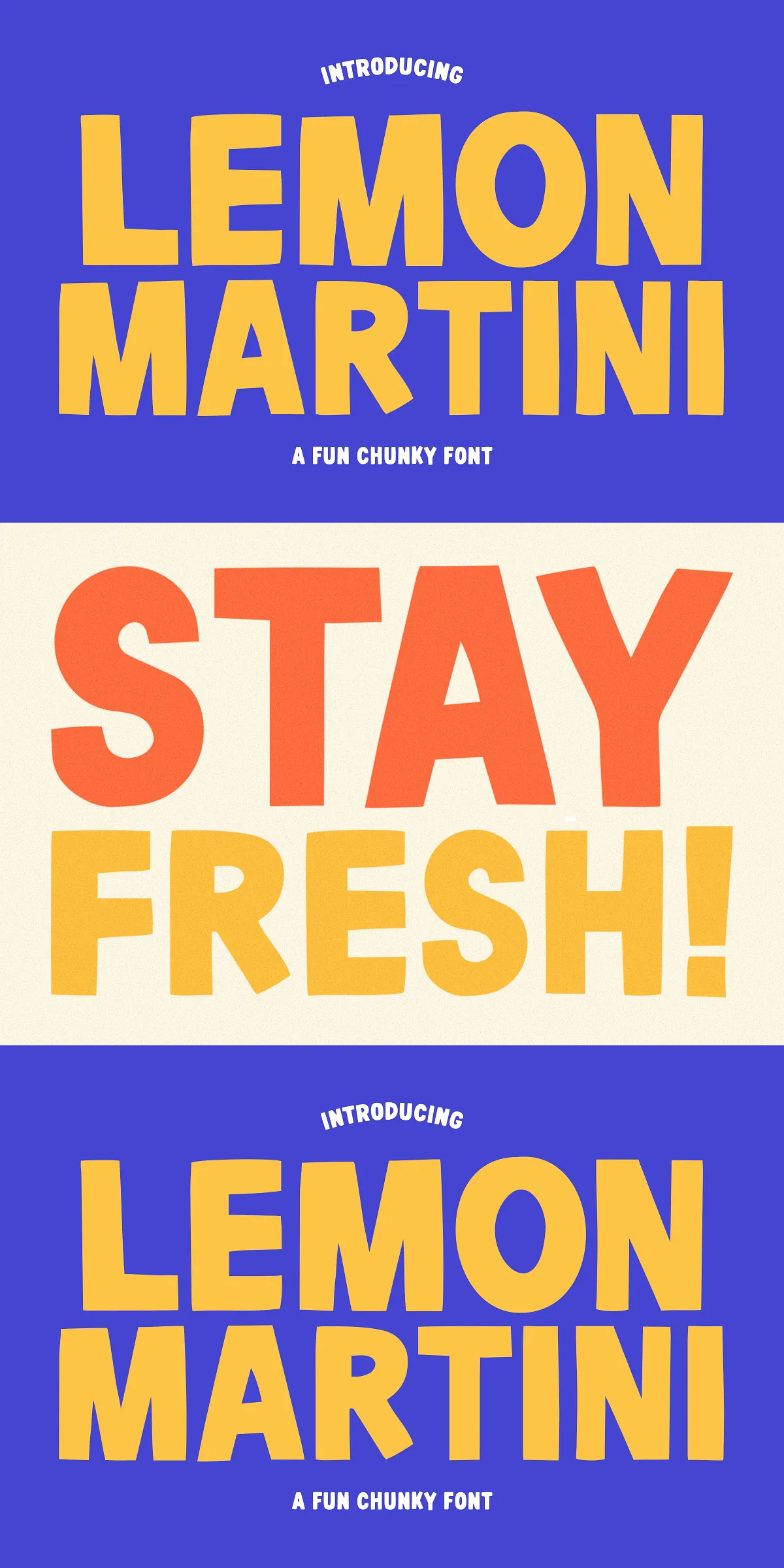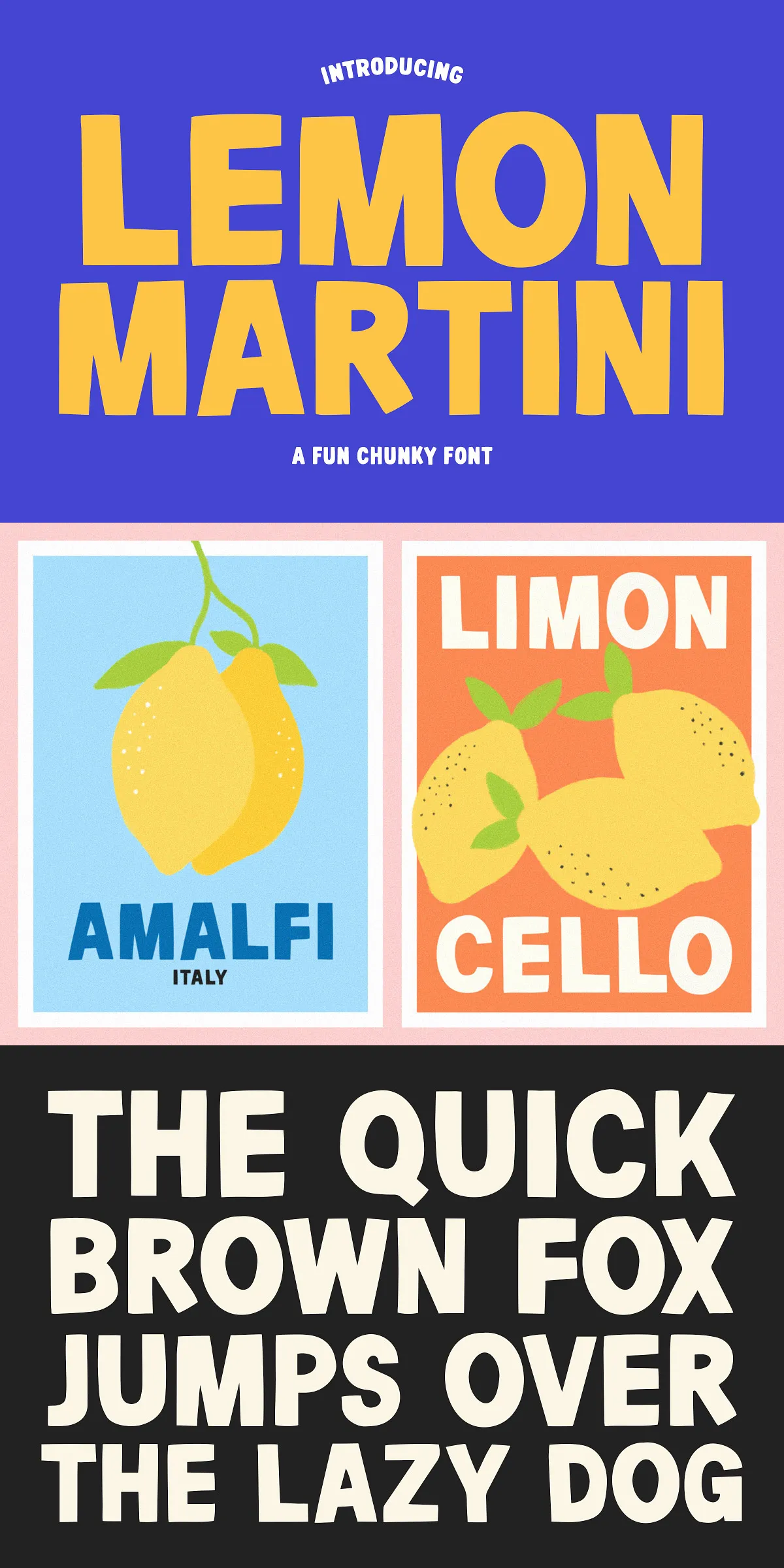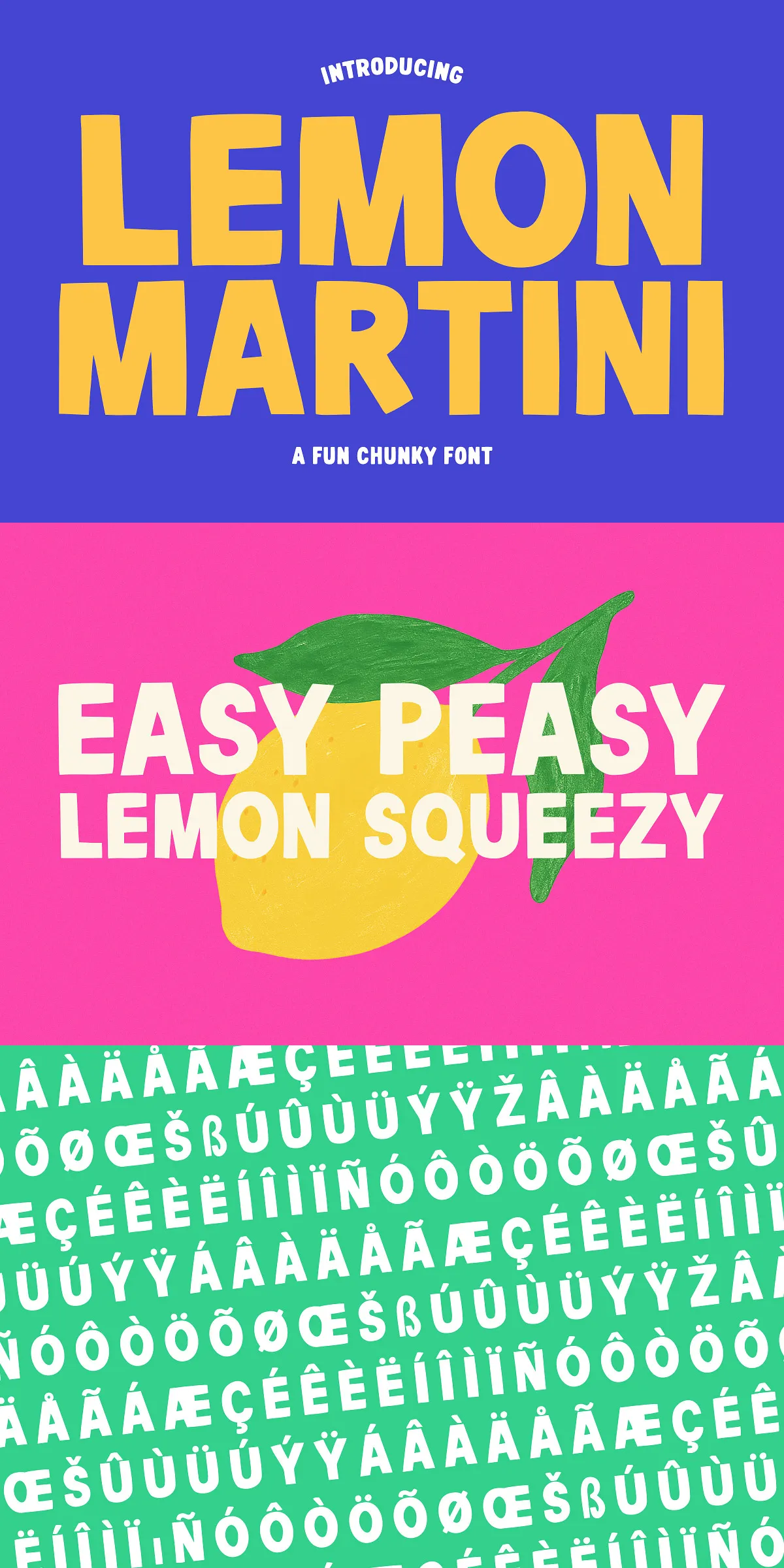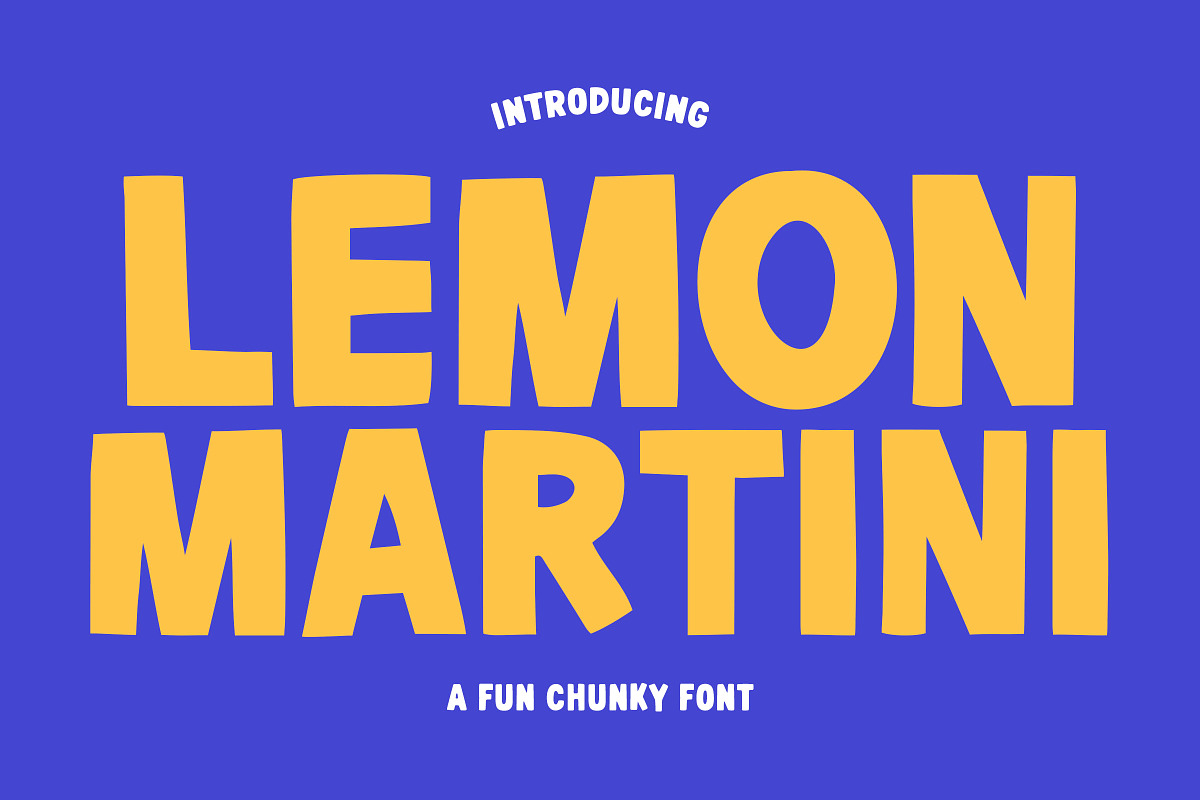
Meet Lemon Martini — a delightfully bold, chunky, and utterly fun typeface crafted for designers who believe creativity should be loud, lively, and full of personality. This is not a font for the shy — it’s a statement. Whether you’re designing for streetwear, party graphics, social media posts, or personalized gifts, Lemon Martini brings instant energy, charm, and bold visual flair to every project.
Designed to Stand Out — Unapologetically Bold and Playful
Lemon Martini doesn’t just spell words — it throws confetti. With exaggerated strokes, rounded terminals, and a whimsical weight distribution, every character pops with quirky character. Its chunky structure ensures high visibility, while its playful aesthetic makes your design feel lighthearted, energetic, and deeply memorable. Perfect for designs that want to spark a smile or grab attention in a crowded feed.
Brighten Every Project with Versatile, High-Impact Typography
Lemon Martini isn’t just for labels or logos — it’s a creative catalyst. Use it to:
- T-Shirt & Apparel Designs: Turn plain garments into instant conversation starters. Its bold, quirky style fits perfectly on streetwear, festival tees, and gift merch.
- Phone Cases & Merchandise: Give your products a vibrant personality. Lemon Martini makes every case, mug, or sticker pop with joyful design energy.
- Greeting Cards & Invitations: Add a playful touch to birthdays, weddings, baby showers, and party themes. Let your message shine with bold, fun typography.
- Social Media & Digital Ads: Capture attention in feeds and stories. Its high-contrast, chunky style ensures readability and visual dominance in fast-scrolling environments.
- Branding & Logo Concepts: Build a bold, fun brand identity. Lemon Martini works great as a centerpiece font for quirky startups, lifestyle brands, and creative agencies.
More Than a Font — A Mood, A Vibe, A Movement
Lemon Martini turns every word into an experience. It’s not just about reading — it’s about feeling. You’re not just typing text; you’re injecting fun, confidence, and creative joy into your work. This font thrives in designs that celebrate individuality, creativity, and playful expression.
Take Your Creative Vision to the Next Level
Stop using boring, basic typefaces. It’s time to elevate your projects with a font that matches your bold spirit. Lemon Martini isn’t just a tool — it’s your creative partner in crafting unforgettable designs.
Elevate Every Project — One Chunky Letter at a Time
With Lemon Martini, every project has the chance to shine. Let your creativity sparkle. Let your message shout. Let your design make people stop, smile, and say, “Wow — that’s fun!”